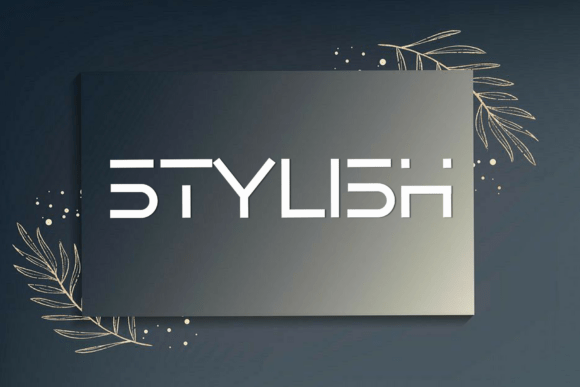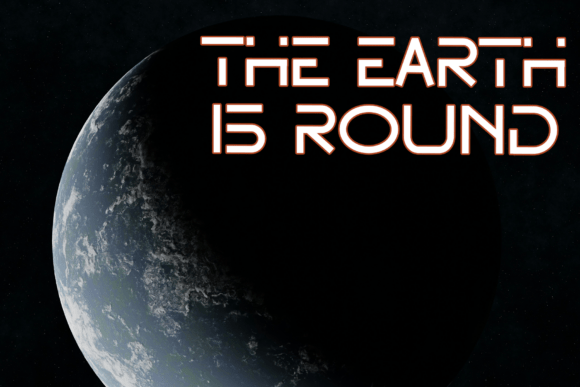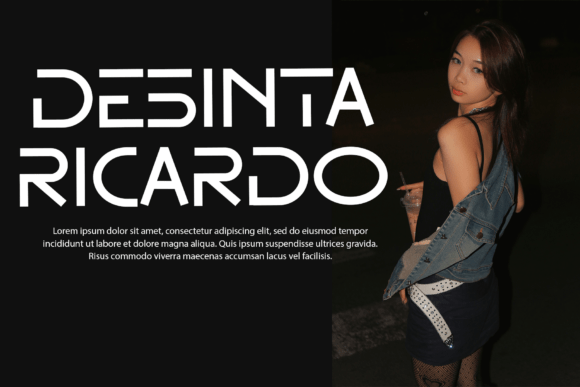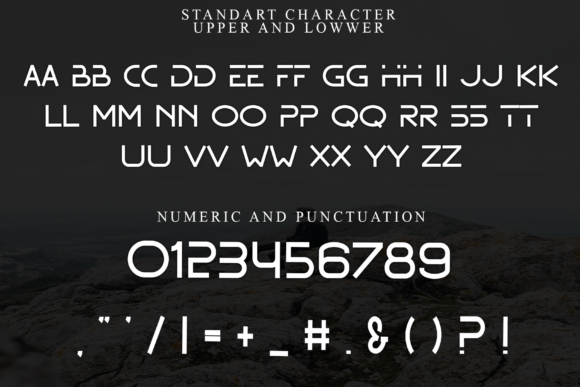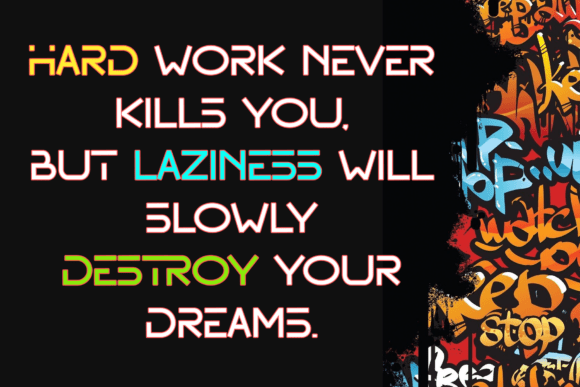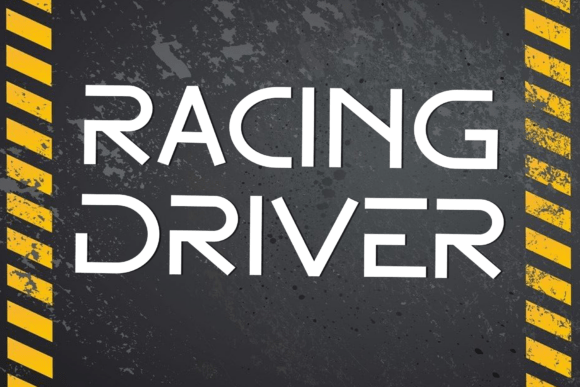
Introducing Electron Font: The Ultimate Holiday Typeface
The holiday season is upon us, and what better way to get into the spirit than with a festive and merry typeface? Look no further than Electron Font, a decorative and whimsical font that’s perfect for adding a touch of enchantment to your designs. Whether you’re a designer, crafter, or simply someone who loves the magic of the holiday season, Electron Font is sure to bring a cheerful and nostalgic ambiance to your words.
Electron Font is a carefully crafted typeface that’s designed to capture the spirit of the holiday season. With its decorative elements and whimsical flair, it’s the perfect choice for any project that requires a touch of festive fun. From greeting cards and gift tags to holiday-themed projects and social media posts, Electron Font is sure to add a dash of magic to your designs.
Electron Font is a versatile typeface that’s perfect for designers and crafters alike. Whether you’re creating professional designs or crafting personal projects, this font is sure to bring a touch of personality and whimsy to your work. With its easy-to-use glyphs and ligatures, you can quickly and easily add a festive touch to your designs, making it perfect for:
- Gift tags and wrapping paper
- Holiday-themed projects and social media posts
PUA Encoded for Easy Use
One of the best things about Electron Font is that it’s PUA (Private Use Area) encoded, which means you can access all of the amazing glyphs and ligatures with ease. This makes it simple to add a touch of festive fun to your designs, without requiring any special software or technical expertise. With Electron Font, you can quickly and easily:
- Access a wide range of decorative glyphs and ligatures
- Customize your designs with ease
- Add a touch of personality and whimsy to your work
Bringing a Cheerful and Nostalgic Ambiance to Your Words
Electron Font is more than just a typeface – it’s a way to bring a cheerful and nostalgic ambiance to your words. With its whimsical flair and decorative elements, it’s sure to evoke the magic of the holiday season, and add a touch of personality to your designs. Whether you’re creating professional designs or crafting personal projects, Electron Font is the perfect choice for anyone who wants to add a little bit of festive fun to their work.
Let Your Typography Shine with Beautiful Font
At the heart of Electron Font is a passion for beautiful typography. With its carefully crafted glyphs and ligatures, this font is designed to help you create stunning designs that shine. Whether you’re a designer, crafter, or simply someone who loves the magic of the holiday season, Electron Font is the perfect choice for anyone who wants to add a touch of elegance and sophistication to their work.
Get Ready to Add Some Holiday Cheer to Your Designs
In conclusion, Electron Font is a must-have typeface for anyone who loves the holiday season. With its festive and merry design, decorative elements, and whimsical flair, it’s the perfect choice for adding a touch of enchantment to your designs. So why wait? Download Electron Font today, and get ready to bring some holiday cheer to your work!